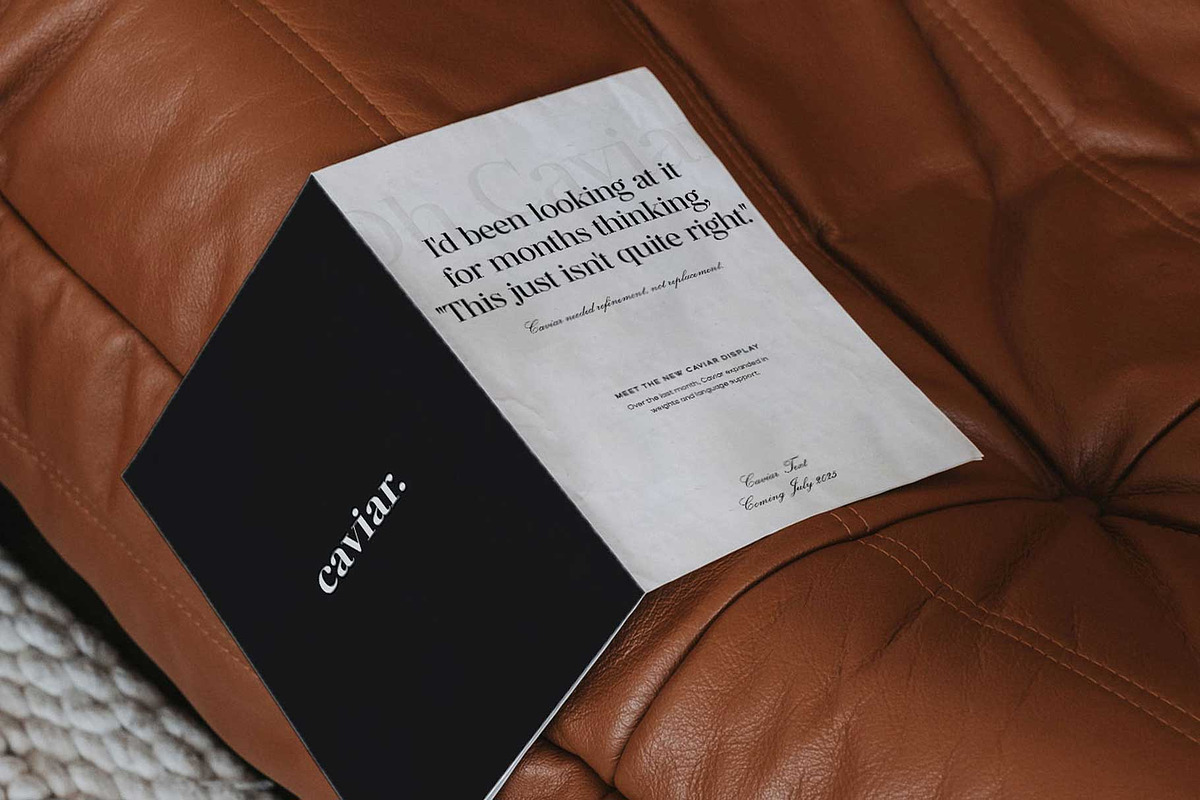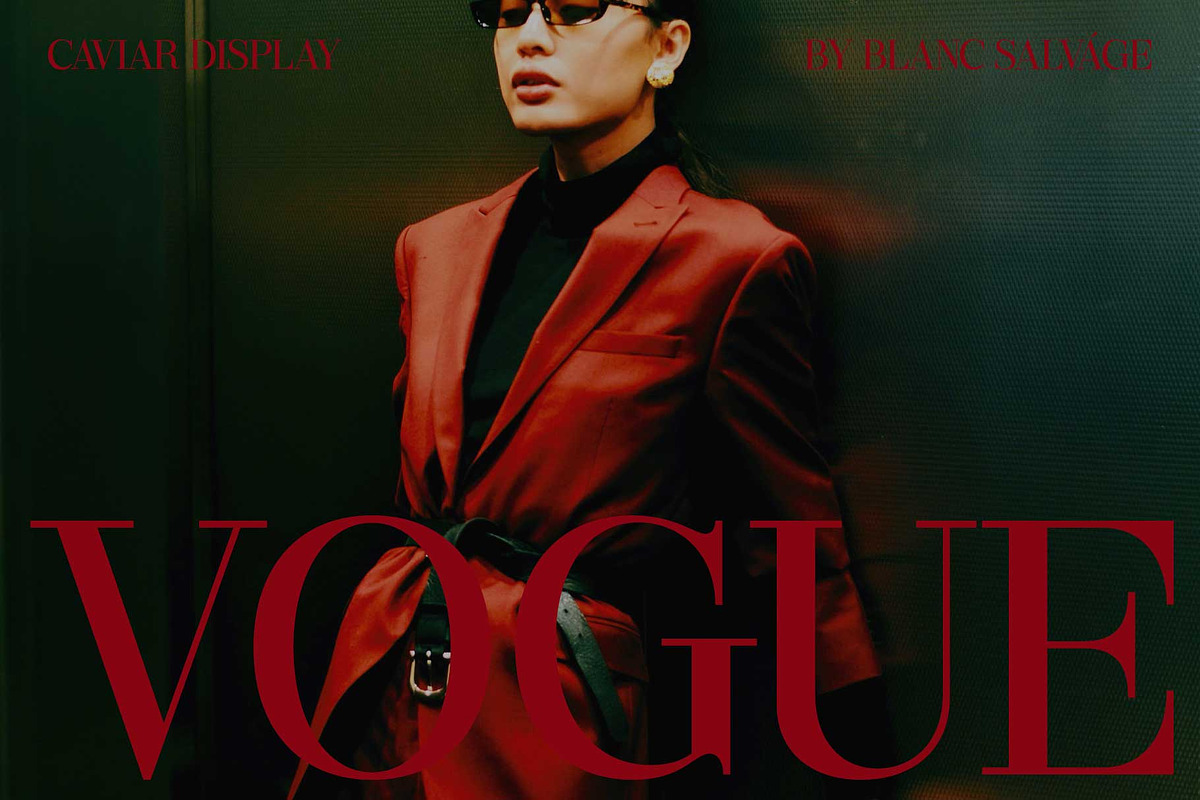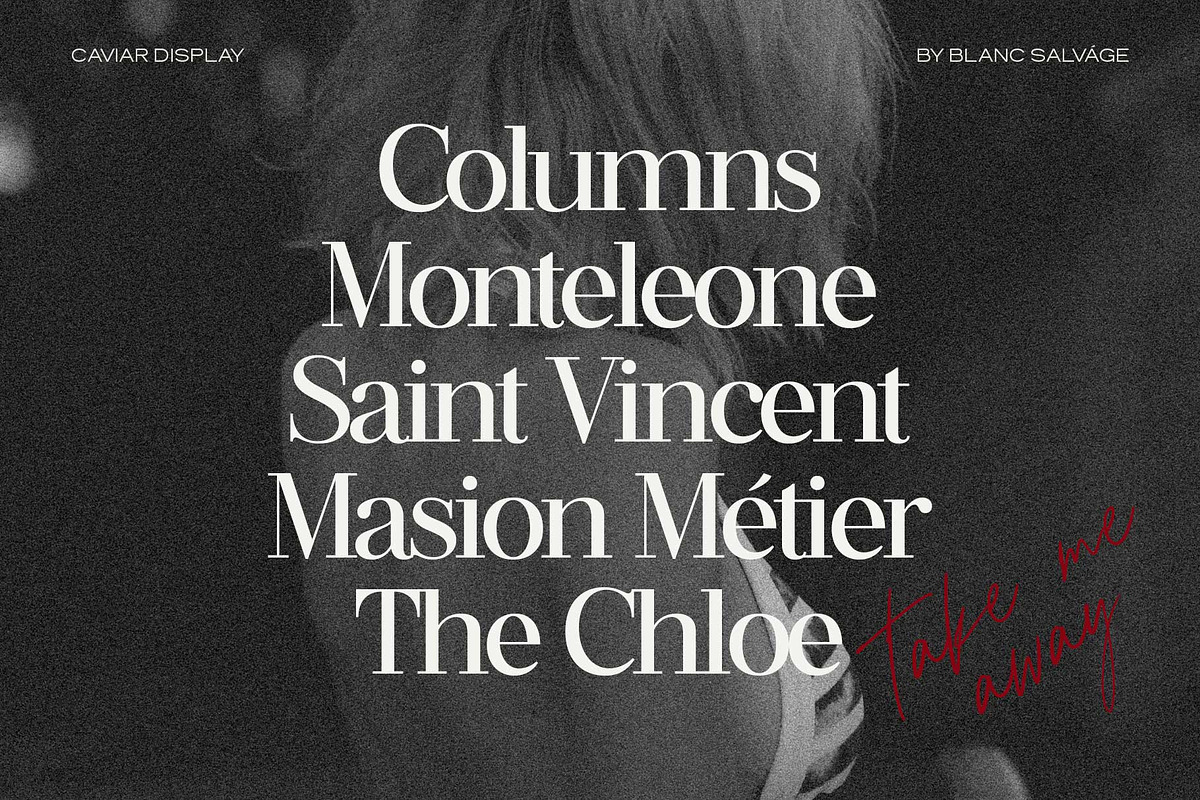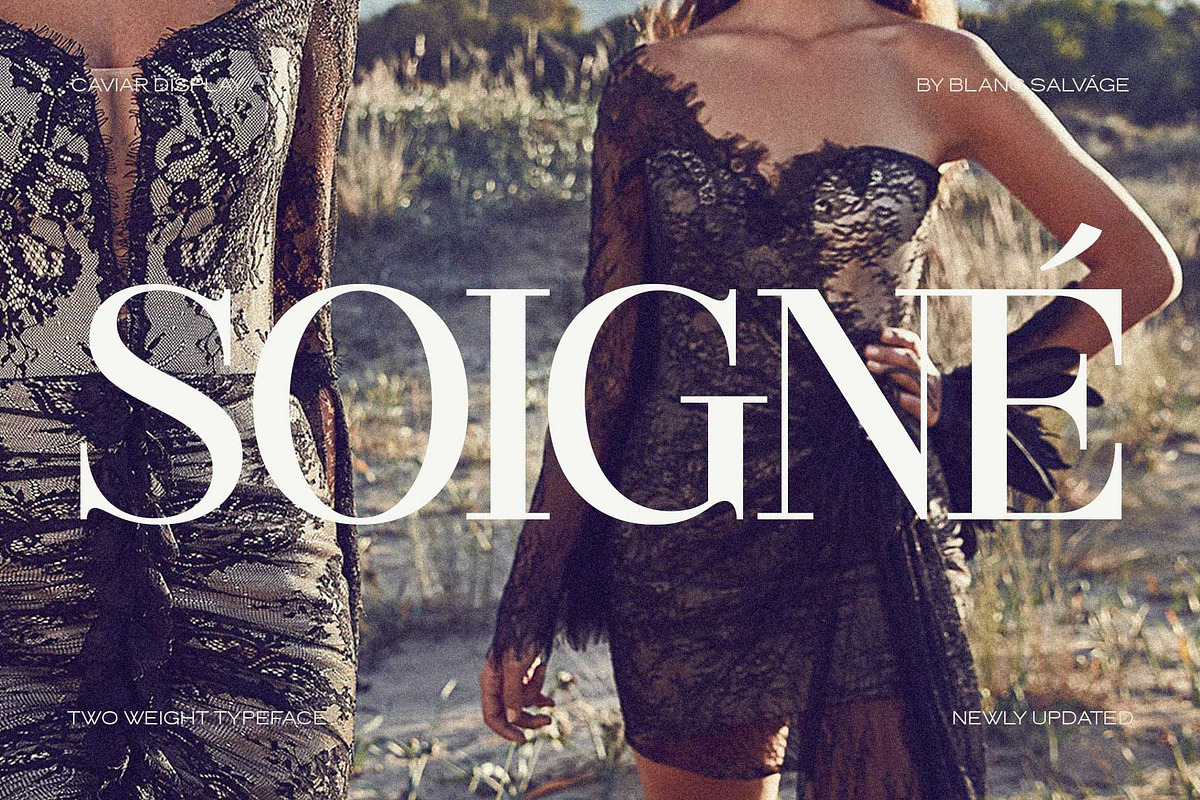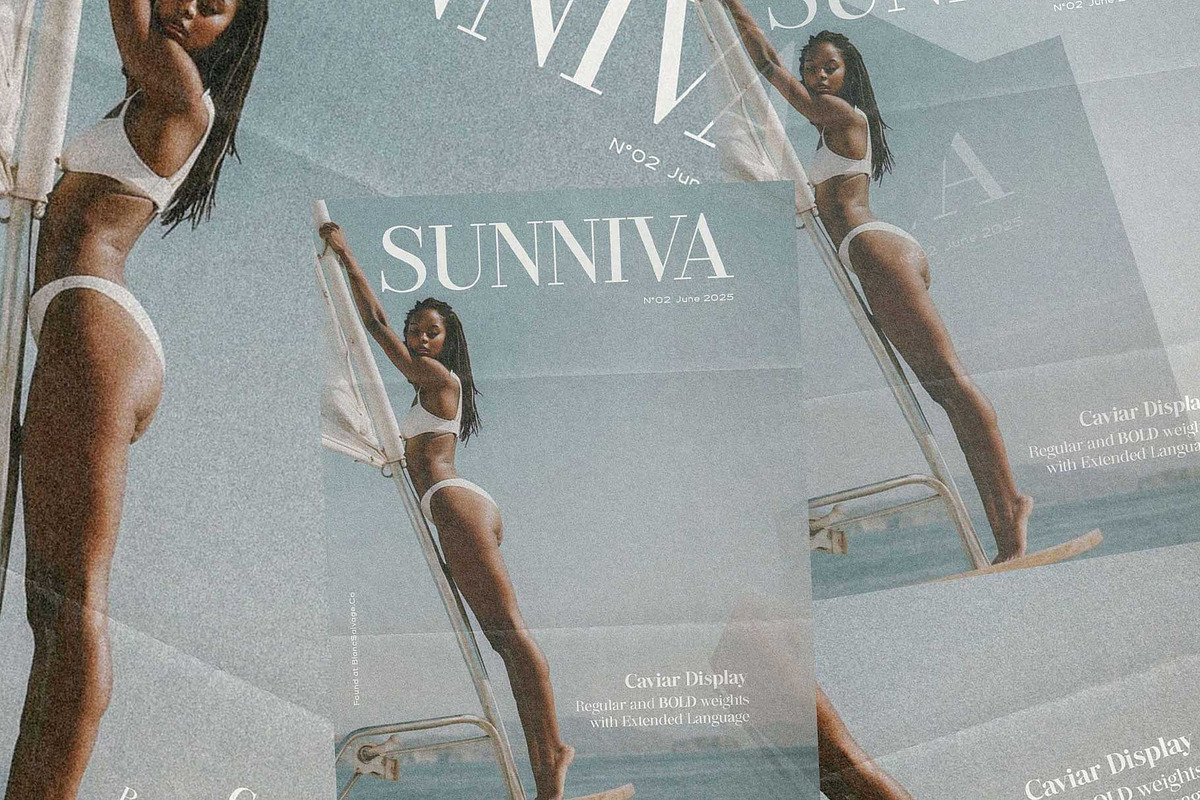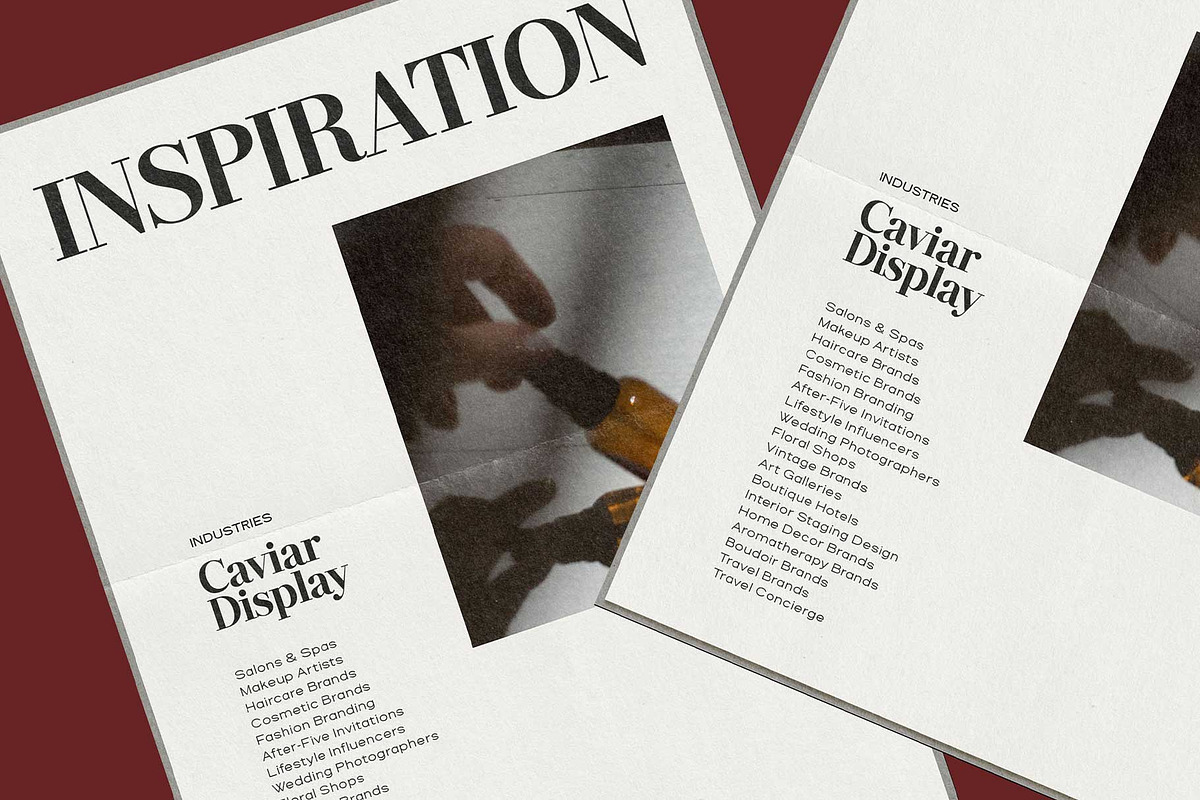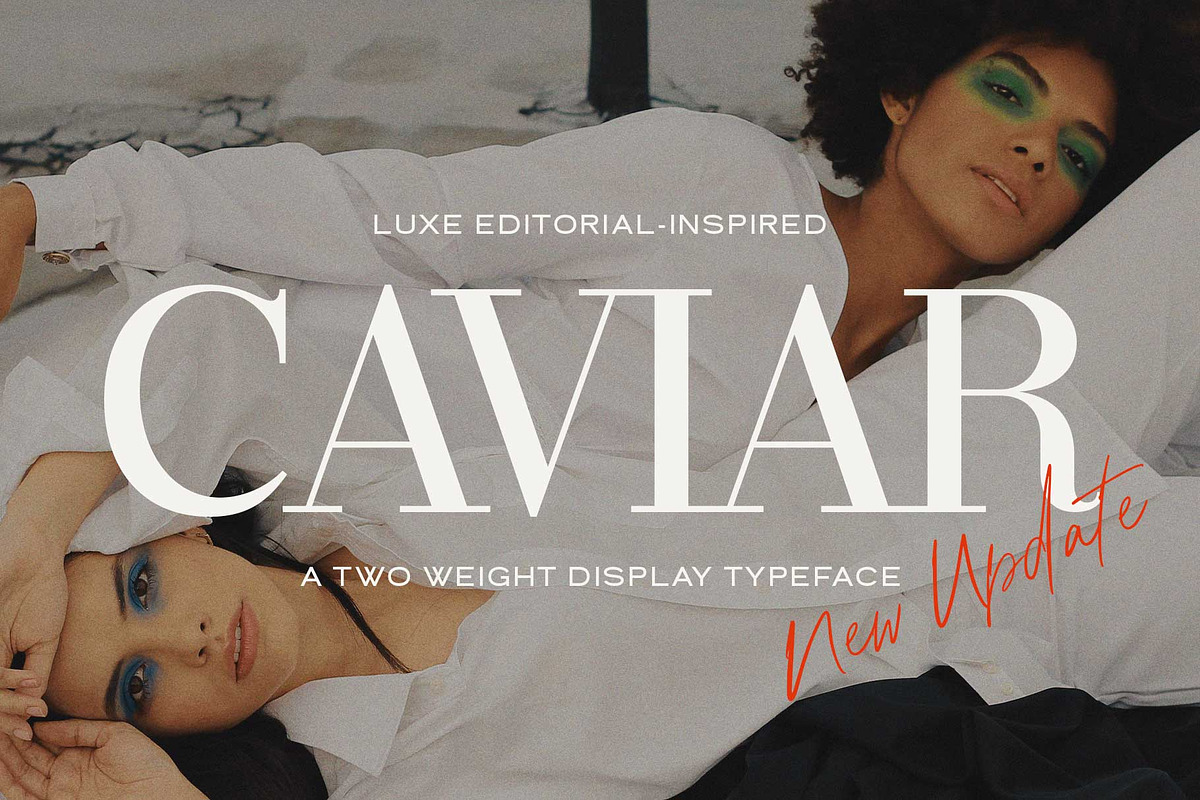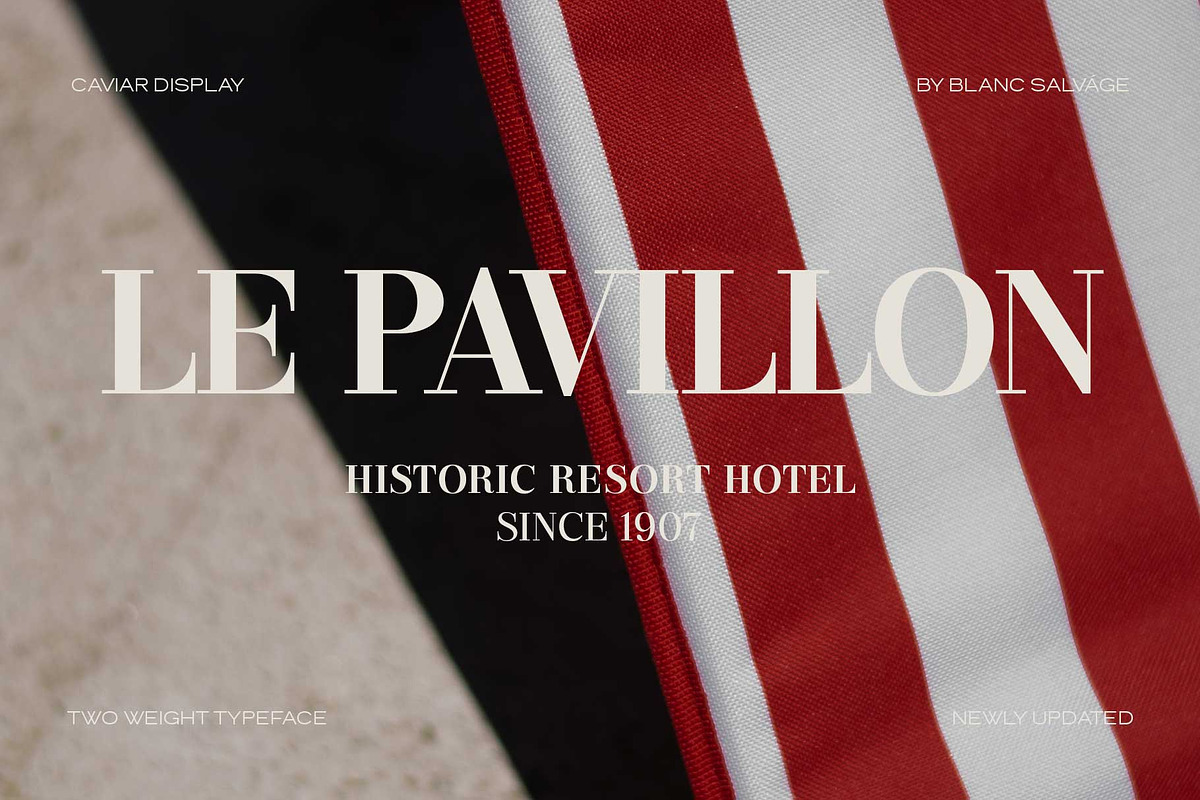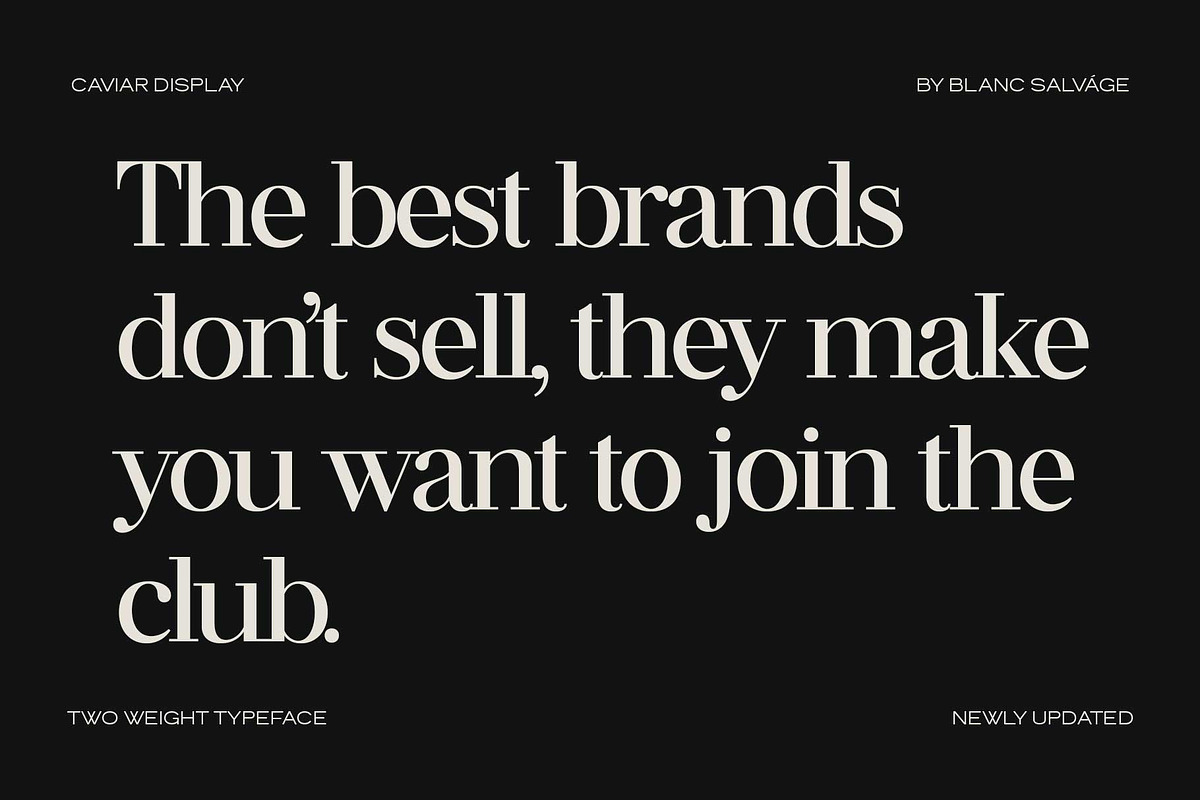
Caviar Luxury Editorial Serif
The Caviar Display Serif is a luxury editorial-inspired font, designed with high contrast for fashion branding, beauty industries, photography studios, wedding invitations, and seaside boutique hotels.
Caviar evokes that old money vibe.
This display typeface can be used to create a variety of design projects, including brand identities, wedding decor signage, social media graphics, product mock-ups, magazine layouts—the list goes on.
From the glamorous runway of NYC to the pages of Vogue, my love for fashion shaped Caviar’s elegant design. This font captures the essence of high style and chic sophistication, with a nod to the timeless Didot typeface that stole my heart long ago.